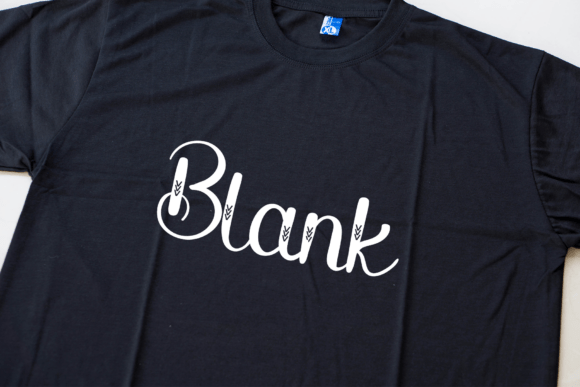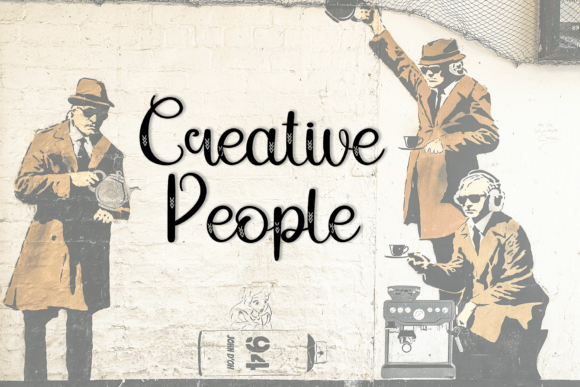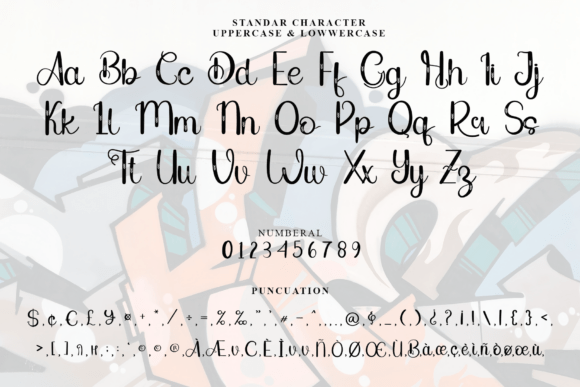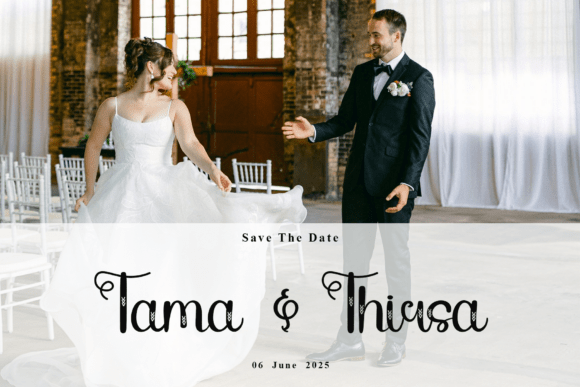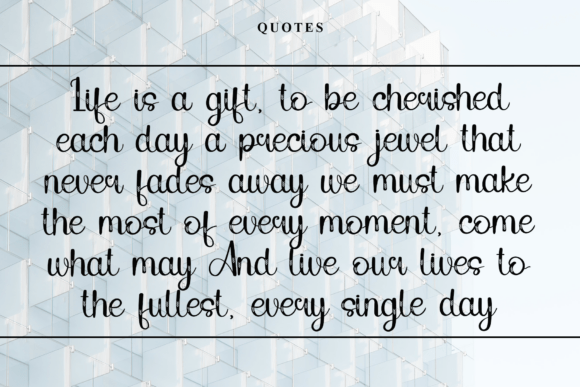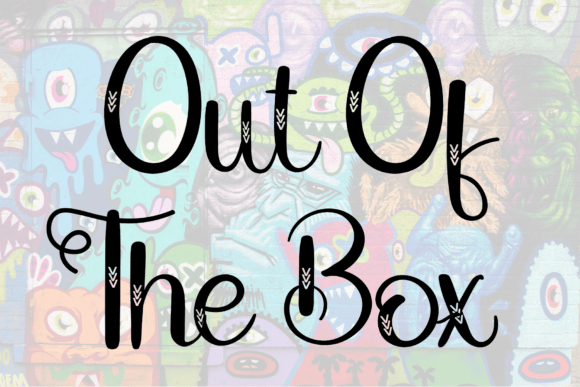
Discover the Timeless Elegance of Graffiti Font: Elevate Your Designs with a Touch of Sophistication
Graffiti Font is a stylish and modern handwritten font that embodies the essence of contemporary design while paying homage to the classic calligraphy of the past. With its impeccable form and elegant strokes, this font is perfect for designers and crafters looking to add a touch of sophistication to their projects. In this article, we’ll explore the world of Graffiti Font, its features, and how it can elevate your designs to new heights.
The Inspiration Behind Graffiti Font
Graffiti Font draws inspiration from timeless classic calligraphy, bringing a sense of tradition and heritage to modern design. The font’s creator aimed to capture the essence of classic calligraphy and infuse it with a contemporary twist, making it perfect for designs that require a touch of elegance and refinement. The result is a font that exudes sophistication and poise, making it ideal for a wide range of design projects.
Key Features of Graffiti Font
- Handwritten style: Graffiti Font boasts a beautiful, handwritten style that adds a personal touch to any design.
- Contemporary atmosphere: The font’s modern design ensures that it stays relevant and fresh, making it perfect for contemporary designs.
- Elegant strokes: The font’s elegant strokes and impeccable form make it a great choice for designs that require a touch of sophistication.
- Versatility: Graffiti Font is highly versatile and can be used for a wide range of design projects, from logos and branding to packaging and more.
How to Use Graffiti Font in Your Designs
Graffiti Font is an incredibly versatile font that can be used in various design projects. Here are some ideas to get you started:
- Logos and branding: Use Graffiti Font to create stunning logos and branding materials that exude elegance and sophistication.
- Packaging design: Add a touch of refinement to your packaging designs with Graffiti Font, perfect for luxury brands and high-end products.
- Stationery and paper goods: Create beautiful stationery, business cards, and paper goods with Graffiti Font, ideal for formal events and corporate settings.
- Digital designs: Use Graffiti Font in digital designs, such as social media graphics, website headers, and more, to add a touch of elegance and sophistication.
Tips for Getting the Most Out of Graffiti Font
To get the most out of Graffiti Font, here are some tips to keep in mind:
- Pair it with contrasting fonts: Pair Graffiti Font with contrasting fonts to create visual interest and add depth to your designs.
- Experiment with colors: Try out different colors and textures to add an extra layer of sophistication to your designs.
- Pay attention to spacing: Pay attention to spacing and kerning to ensure that your text is easy to read and visually appealing.
Graffiti Font is a stunning handwritten font that brings a touch of elegance and sophistication to any design project. With its impeccable form, elegant strokes, and contemporary atmosphere, this font is perfect for designers and crafters looking to elevate their designs to new heights. Whether you’re working on a logo, packaging design, or digital project, Graffiti Font is sure to impress. So why wait? Download Graffiti Font today and experience the timeless elegance of classic calligraphy in a modern, trendy package.